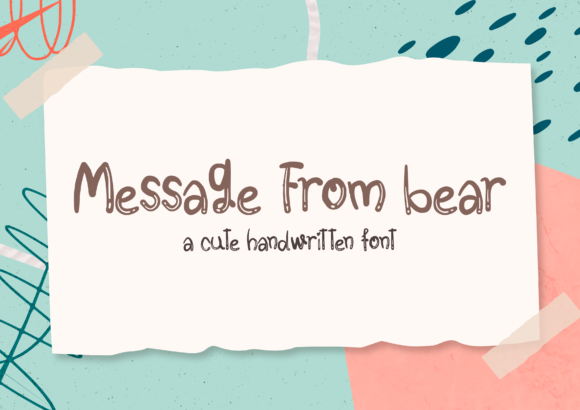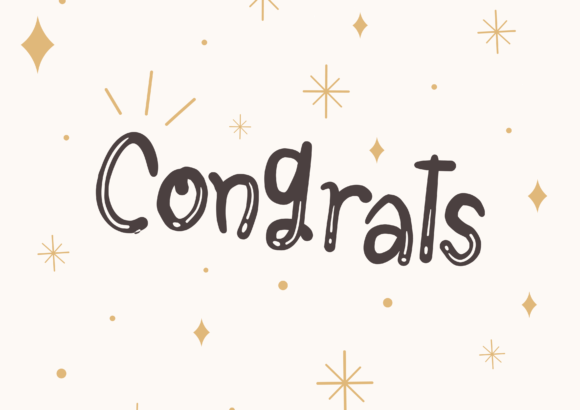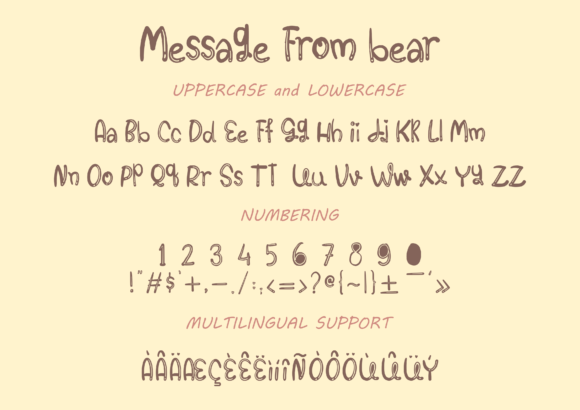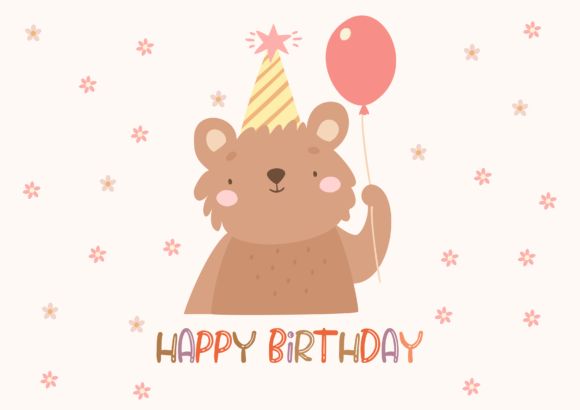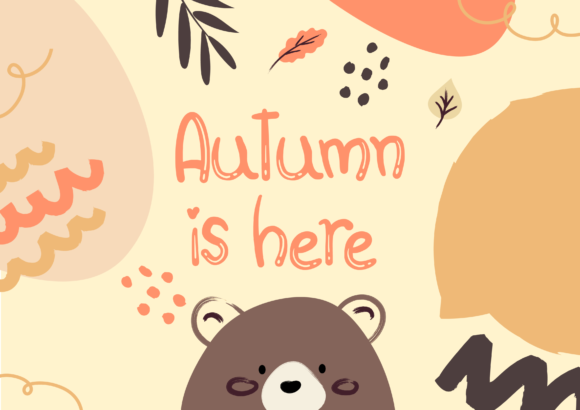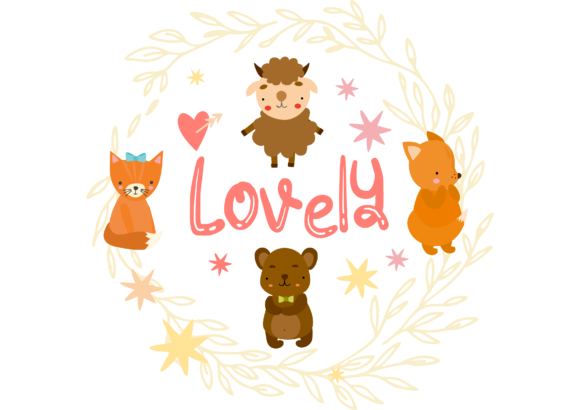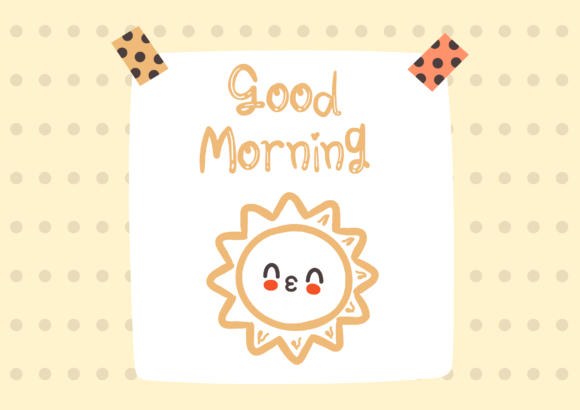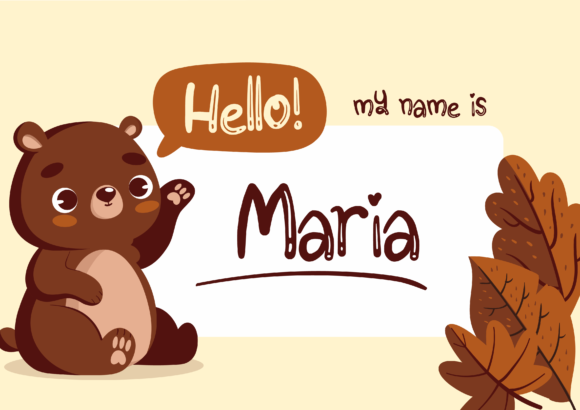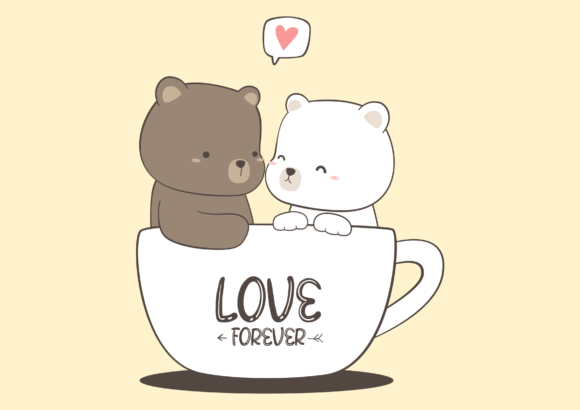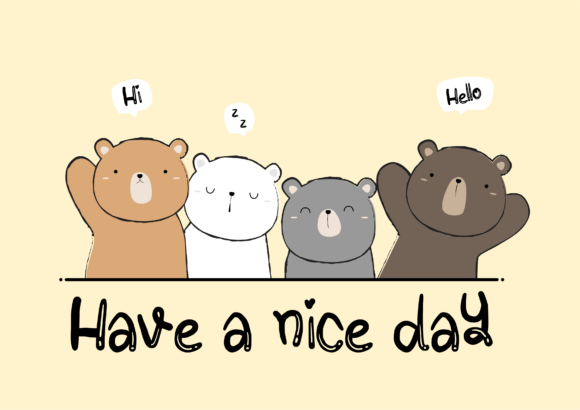
Message from Bear Font
About Message from Bear Font
Message from BearĀ is a cute and simple lettered handwritten font that can be used for all chalkboard quotes or teaching material! Its authentic look will add a personal and realistic feel to your designs.